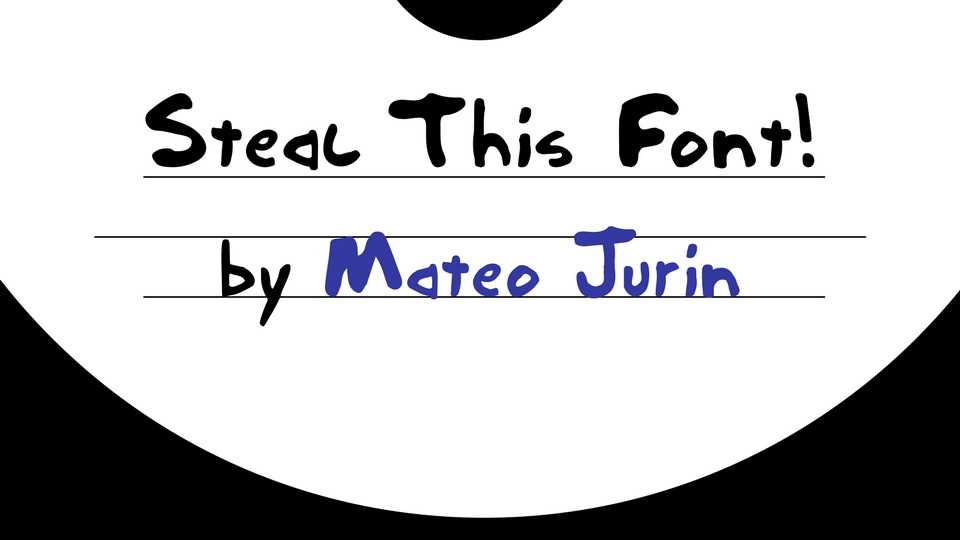
Download Steal This Font! type, a fan-made font. The inspiration got was from System of a Down and their album cover. From “Steal This Album!” to “Steal This Font!”
Designer: Mateo Jurin